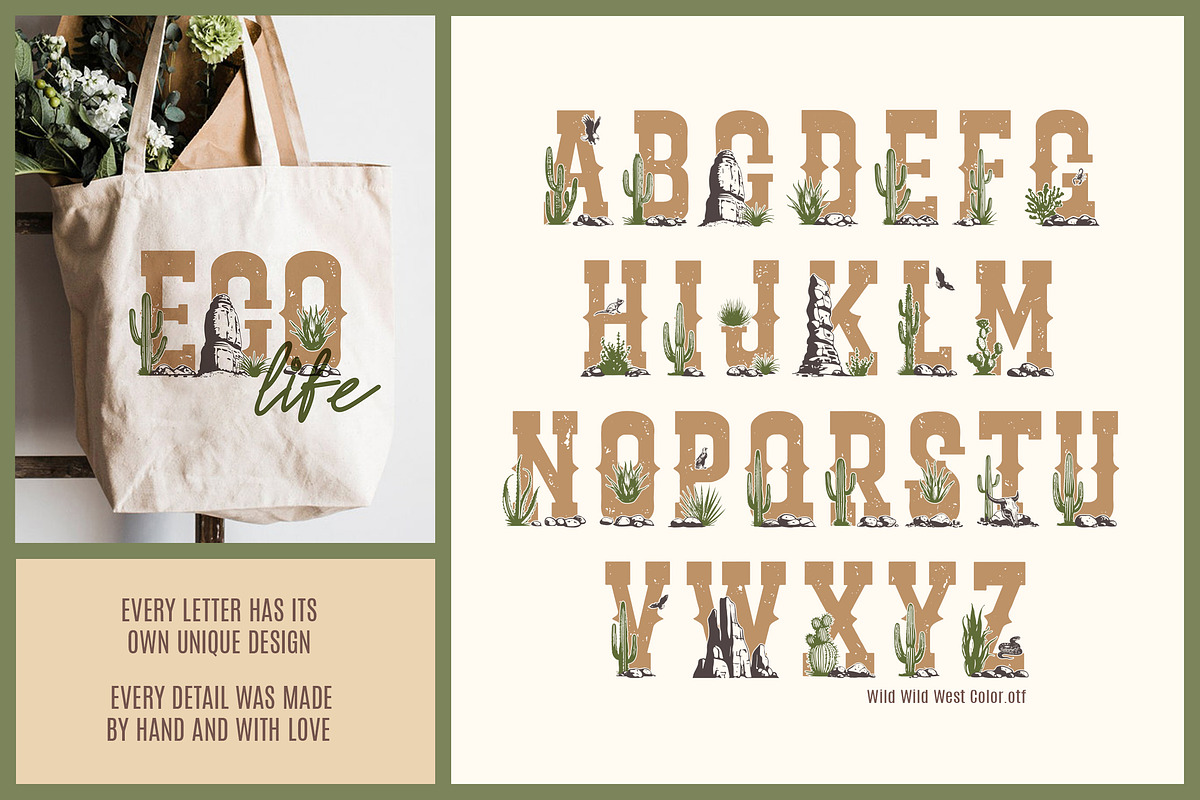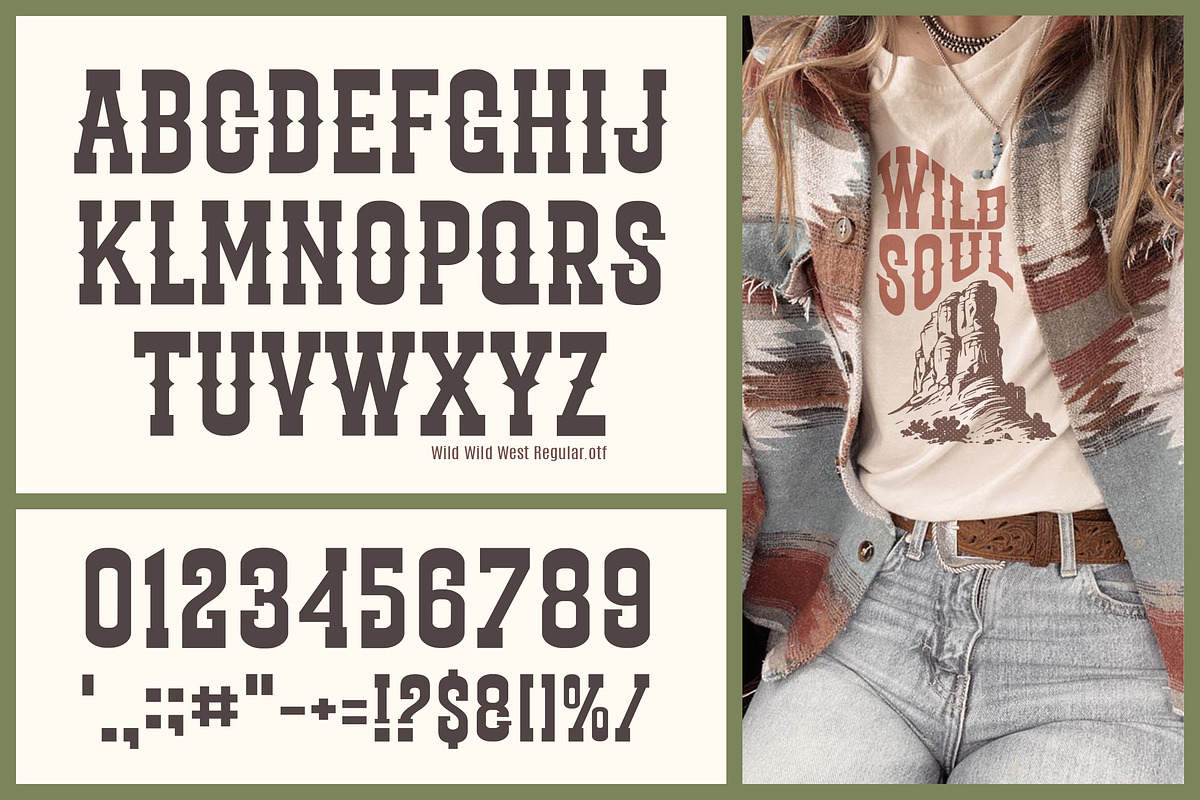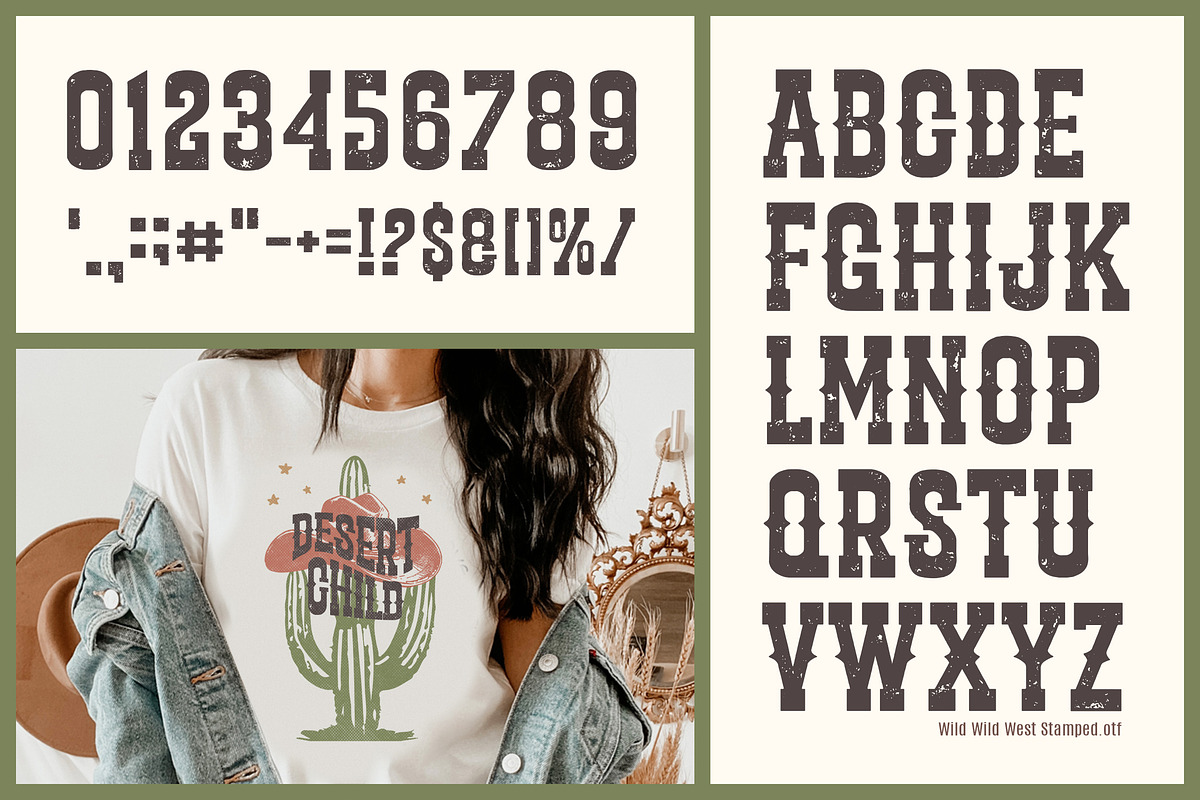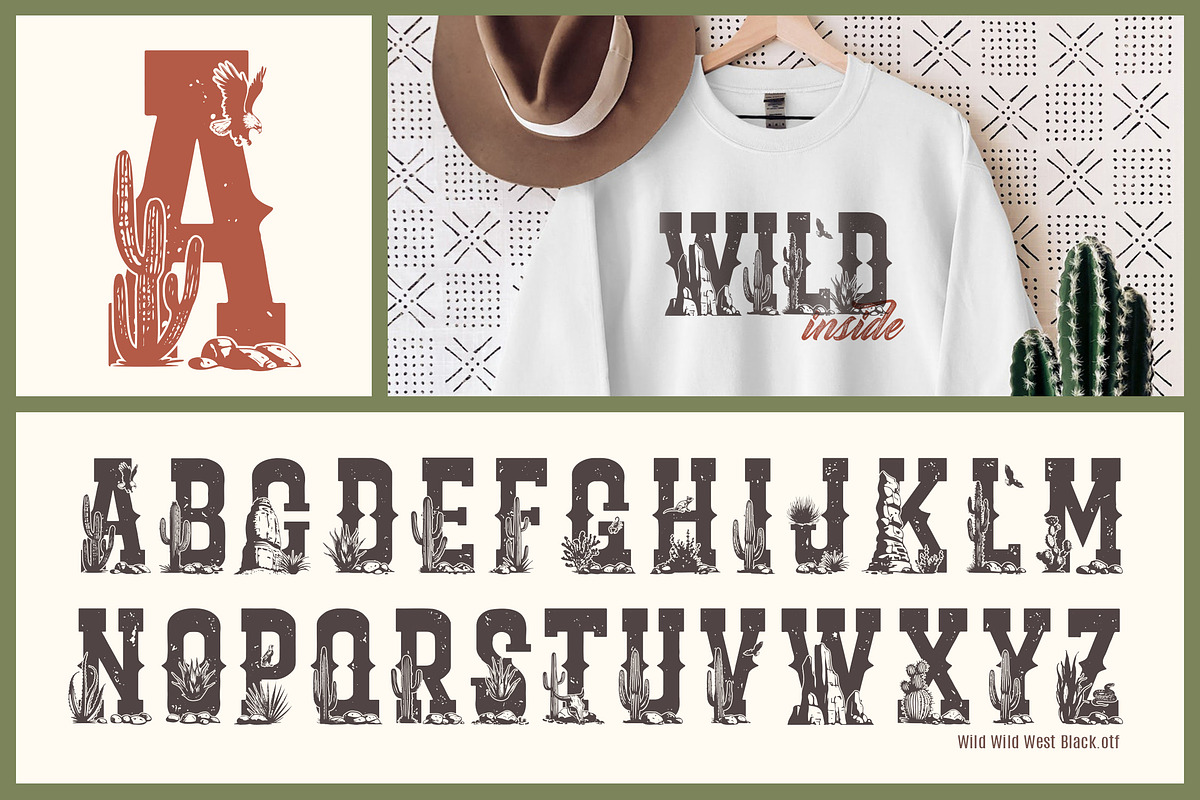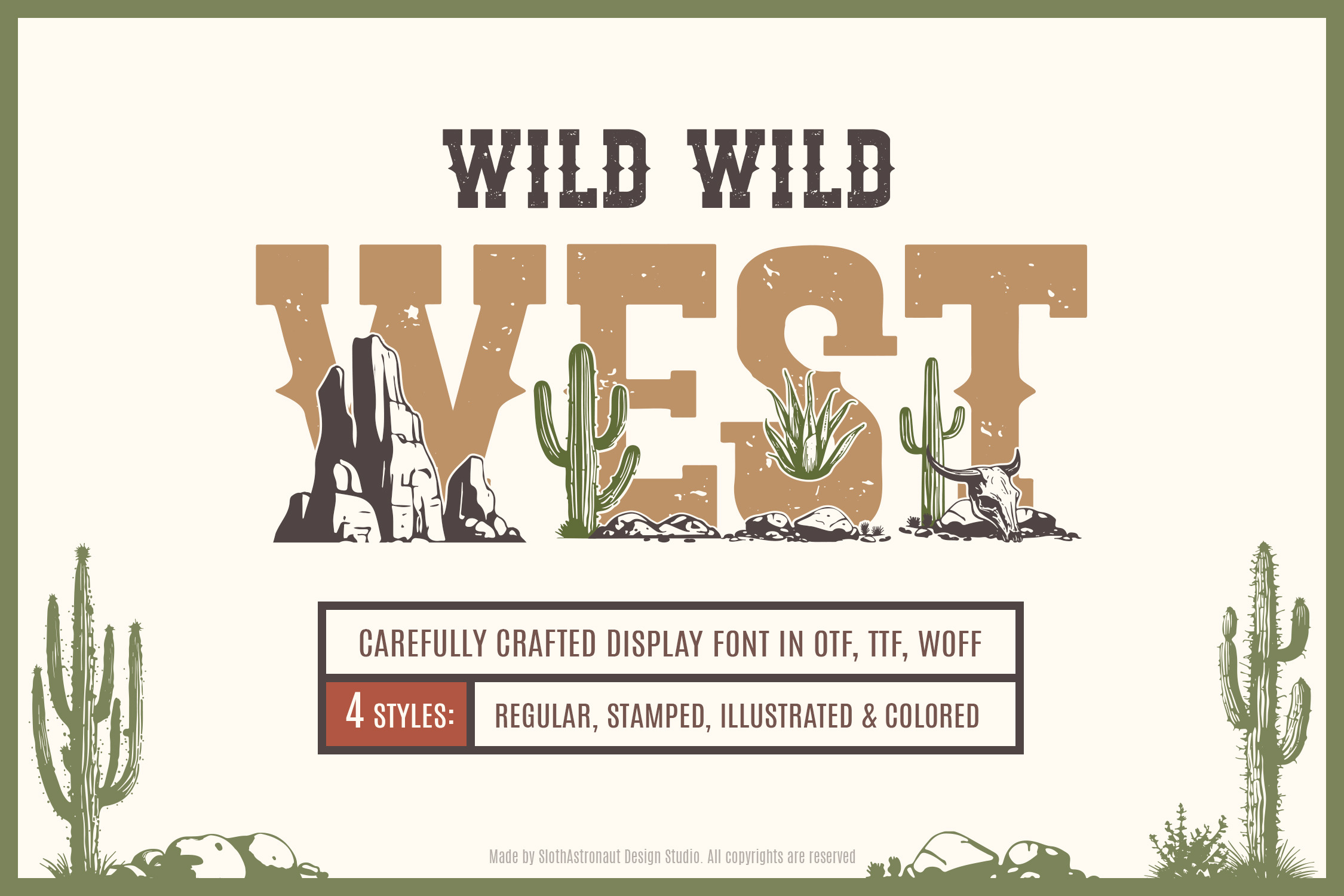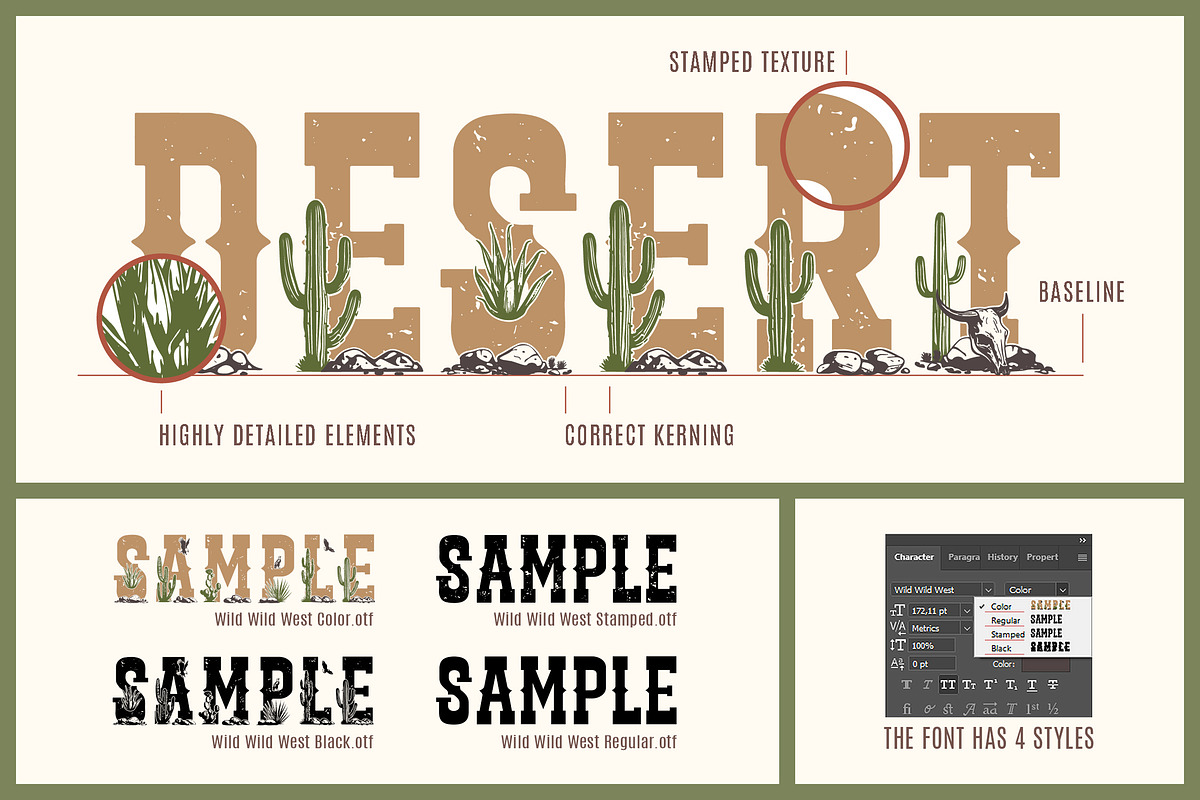
Wild Wild West. Color Font (4styles)
Need a font with more character than a cowboy at high noonš¤ ? Look no further! Introducing the new "Wild Wild West" font, you'll be able to rustle up some seriously cool designs in no time. Say "adios" to those long hours spent tinkering with your typography, because this font is so easy to use, you'll be done with your project before you can say "yeehaw!"
Every letter has its own unique design and every detail was made by hand and with love.